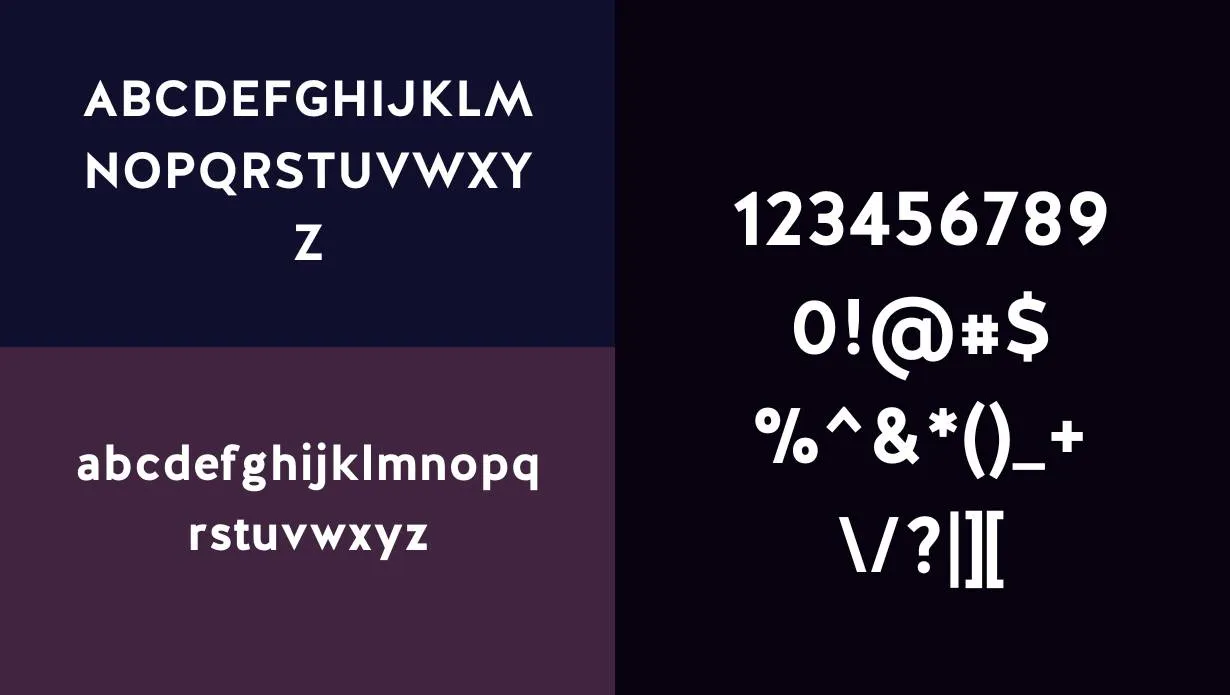
Halis Grotesque Font is a modern and versatile sans-serif typeface suitable for various design applications.
Its clean lines and multiple styles make it a practical choice for branding, advertising, web design, and packaging. Halis Grotesque Font offers a contemporary and well-organized aesthetic to your design projects.
| Name | Halis Grotesque Font |
| Designer | Ahmet Altun |